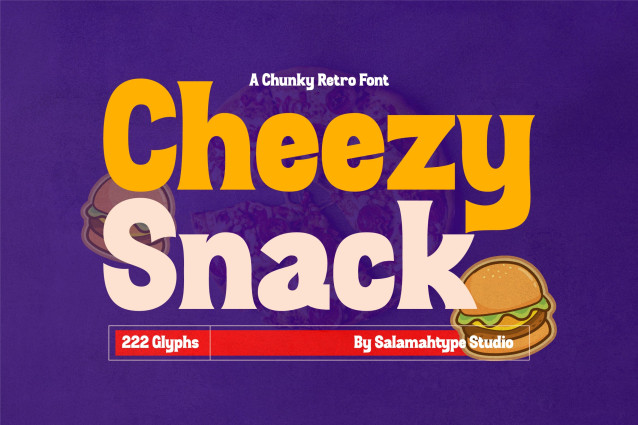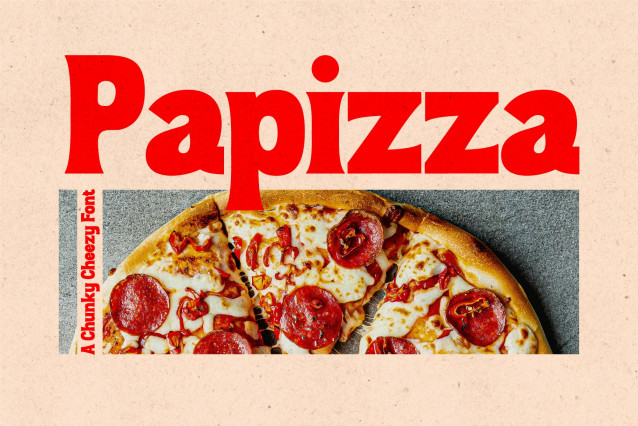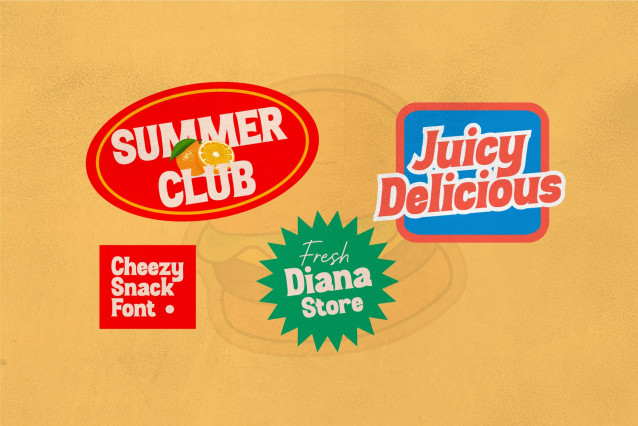
Cheezy Snack – Fun Font
Cheezy Snack is a bold and playful retro style font that brings delicious fun to your design plate. With thick, chunky letterforms and nostalgic vibes, this font is perfect for branding projects related to food, snacks, pop culture, and anything that needs a dose of funky charm.